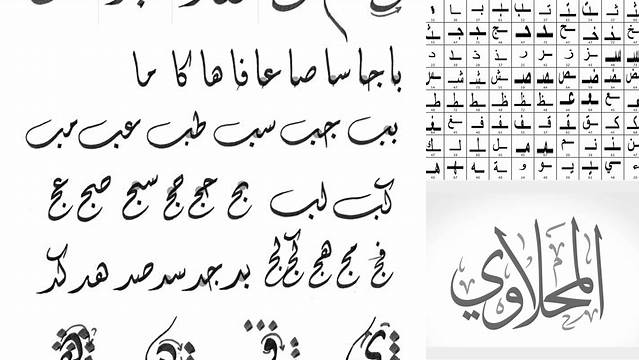
Elegant Arabic Fonts For Photoshop: A Designer's Guide
Arabic calligraphy fonts can add a touch of elegance and authenticity to your designs in Photoshop. Finding the right font, however, can be a challenge. This article explores some of the best Arabic calligraphy fonts for Photoshop, helping you create stunning visuals. We'll cover various styles, from traditional to modern, and provide tips on how to use them effectively in your projects. So, let's dive in and discover the perfect font for your next masterpiece!
Understanding Arabic Calligraphy Fonts
Arabic calligraphy fonts, known for their flowing lines and intricate designs, are more than just a way to write; they are an art form. Each font carries its own personality and historical significance, deeply rooted in Islamic culture and tradition. Understanding the nuances of these fonts is crucial for any designer looking to incorporate them into their work.
Different Styles of Arabic Calligraphy: There's a rich tapestry of styles to choose from, including Kufic, Naskh, Thuluth, Diwani, and Ruq'ah. Kufic, one of the oldest forms, is characterized by its angular and geometric shapes, often used in early Islamic manuscripts and architectural inscriptions. Naskh, known for its clarity and readability, is widely used in printed materials and contemporary designs. Thuluth, with its bold and curved letters, is often seen in decorative panels and عنوان. Diwani, known for its ornate and flowing style, is typically used in formal documents and certificates. Ruq'ah, a simpler and more compact script, is popular for handwriting and everyday use. When selecting a font, consider the mood and message you want to convey. A traditional style like Kufic might be perfect for historical or religious contexts, while a modern interpretation of Naskh could be ideal for a contemporary design. The key is to choose a font that not only looks beautiful but also aligns with the overall theme of your project.
Technical Considerations for Photoshop: Using Arabic calligraphy fonts in Photoshop requires attention to detail. Since Arabic is written from right to left, ensure your Photoshop settings are configured accordingly. Go to Edit > Preferences > Type and check the box that says Show Indic Options. This will allow you to work with right-to-left text more efficiently. Also, be mindful of the font size and spacing. Arabic calligraphy often requires more space between letters and lines to maintain its legibility and aesthetic appeal. Experiment with different kerning and leading settings to achieve the perfect balance. Furthermore, consider the resolution of your design. Intricate calligraphy can lose its detail if the resolution is too low. Aim for a high resolution, especially if the design will be printed. Finally, remember to check the font's licensing terms. Some fonts are free for personal use but require a commercial license for business projects. Always respect the font creator's rights and ensure you have the necessary permissions to use the font in your work.
Cultural Sensitivity and Appropriate Use: When working with Arabic calligraphy fonts, it's essential to approach the task with cultural sensitivity. These fonts are deeply connected to Islamic art and culture, and misuse can be seen as disrespectful. Avoid using calligraphy in contexts that are offensive or trivializing. For example, using a sacred script in a frivolous advertisement could be considered inappropriate. Research the meaning and historical context of the font you're using to ensure it aligns with your project's message. Be mindful of the audience you're targeting and consider their cultural background. If you're unsure about the appropriateness of a particular font, seek advice from someone familiar with Islamic culture and art. By showing respect for the cultural significance of Arabic calligraphy, you can create designs that are not only beautiful but also meaningful and respectful.
Top Arabic Calligraphy Fonts for Photoshop
Choosing the right Arabic calligraphy font for your project can significantly impact its visual appeal and effectiveness. Here are some of the top fonts that work well in Photoshop, categorized by style and application.
Traditional Styles:
- Kufic: Ideal for historical or religious contexts, Kufic fonts offer a bold, angular look. Examples: Koufi, Arabica.
- Naskh: Known for its legibility, Naskh is perfect for body text and modern designs. Examples: Adobe Arabic, Amiri.
- Thuluth: Best for titles and decorative elements, Thuluth fonts are ornate and eye-catching. Examples: Diwani Letter, Thuluth Modified.
Modern Styles:
- Simplified Kufic: A contemporary take on Kufic, offering a cleaner, more minimalist design. Examples: Kufi Square, Modern Kufic.
- Geometric Arabic: These fonts use geometric shapes to create a modern Arabic aesthetic. Examples: Cairo, Tajawal.
- Hybrid Styles: Combining traditional and modern elements, these fonts offer a unique and versatile option. Examples: Aref Ruqaa, Reem Kufi.
Display Fonts:
- Decorative Thuluth: Highly stylized Thuluth fonts perfect for posters and শিরোনাম. Examples: Sultan Ad-Diwani, DecoType Thuluth.
- Calligraphic Serifs: Fonts that blend Arabic calligraphy with serif elements for a classic look. Examples: Scheherazade, Lateef.
When selecting a font, consider the overall design aesthetic and the message you want to convey. Traditional fonts are great for conveying a sense of history and authenticity, while modern fonts offer a more contemporary and clean look. Display fonts are perfect for making a bold statement in عناوين and posters.
Arabic calligraphy fonts offer a unique and beautiful way to enhance your designs in Photoshop. By understanding the different styles, knowing how to install and configure the fonts, and following best practices for their use, you can create stunning visuals that showcase the elegance and artistry of Arabic calligraphy. Whether you're working on a historical project, a modern design, or a decorative piece, the right Arabic font can make all the difference. So, explore the fonts mentioned in this article, experiment with different styles, and let your creativity flow. With a little practice and attention to detail, you'll be creating breathtaking designs in no time!